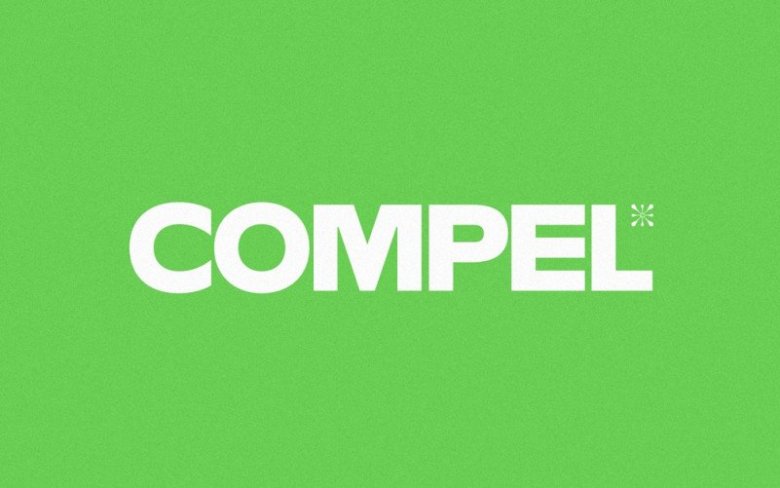
Compel – Geometric Font
Compel – Geometric Font is a futuristic, This is a universal sans serif– clean and timeless. Both iconic and legible, It’s suited to cover many needs from brand identities to editorial design, advertising, logos and beyond. It’s design and shared by Creative Sauce.
Compel Geometric Font is a high impact geometric display typeface that is ideal for posters, headlines and logotypes. It’s provides a distinct, creative, and expressive message for branding, advertising, packaging, headlines, magazines, websites, logos, and more.